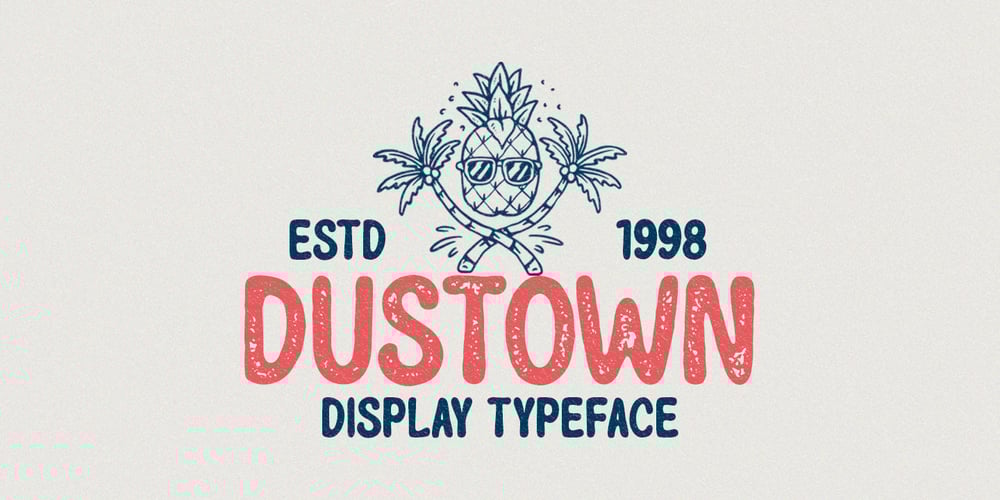
Dustown Font Family was designed by Hendry Juanda and published by Letterhend. Dustown contains 2 styles and family package options. Dustown is an organic font with natural vibes! Contain two fonts, Sans and Serif with Rough and Stamp Style. You can use this font for every project. Suitable for branding logo, hand lettering, or apparel design. This font duo also support multilingual, number and symbol.